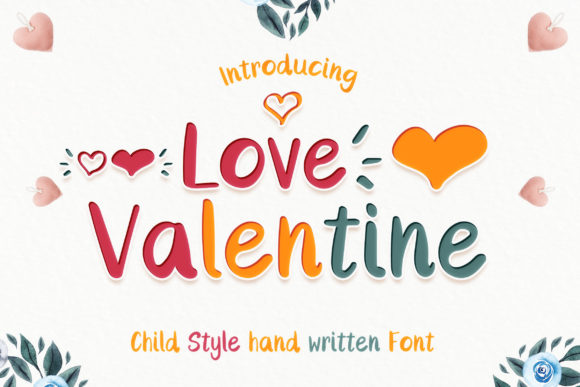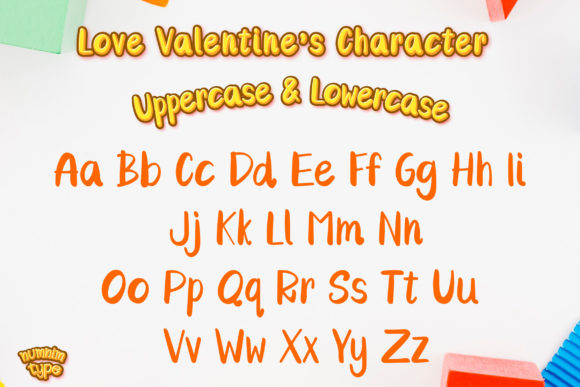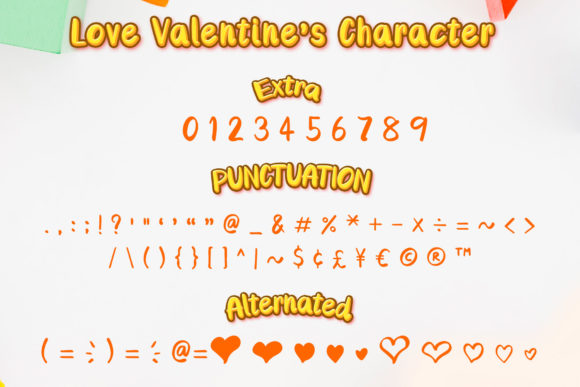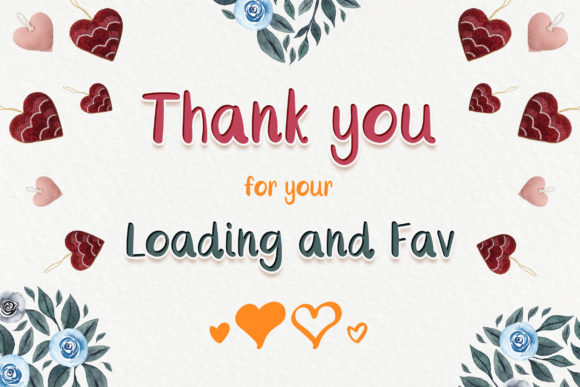
About Love Valentine Font
Love Valentine is an absolutely charming and heartwarming handwritten font that will instantly capture your attention. With its joyful and warm vibes, this font is the perfect choice for adding a touch of whimsy and love to your designs. From school projects to child-related content and even heartfelt love letters, Love Valentine brings a delightful and refined style to every design.
One of the standout features of Love Valentine is its cute doodle elements that accompany the handwritten characters. These playful doodles can be found in the form of hearts, stars, swirls, and other endearing shapes. They add a unique and whimsical flair to the font, making it ideal for creating designs that evoke a sense of joy and happiness.
Whether you’re designing educational materials for young children, creating posters for a school event, or crafting love notes and greeting cards for special occasions, Love Valentine will infuse your designs with a sense of sweetness and authenticity. The handwritten style of the font adds a personal touch, creating a connection with your audience and conveying heartfelt emotions.
When working with Love Valentine, it’s important to consider legibility and readability, especially when using it for longer texts. The font’s characters have a distinct and playful appearance, so it’s essential to test different sizes and contexts to ensure that the text remains clear and easy to read while still maintaining the font’s whimsical essence.
Whether you’re a teacher looking to create engaging classroom materials, a designer seeking to add a touch of magic to your projects, or someone wanting to express their love and affection through heartfelt messages, Love Valentine is a font that will make your designs truly special.
So, embrace the delightful and warm vibes of Love Valentine, and let your creativity soar as you bring your ideas to life with this enchanting handwritten font. Get ready to spread love, joy, and whimsy with every design you create!